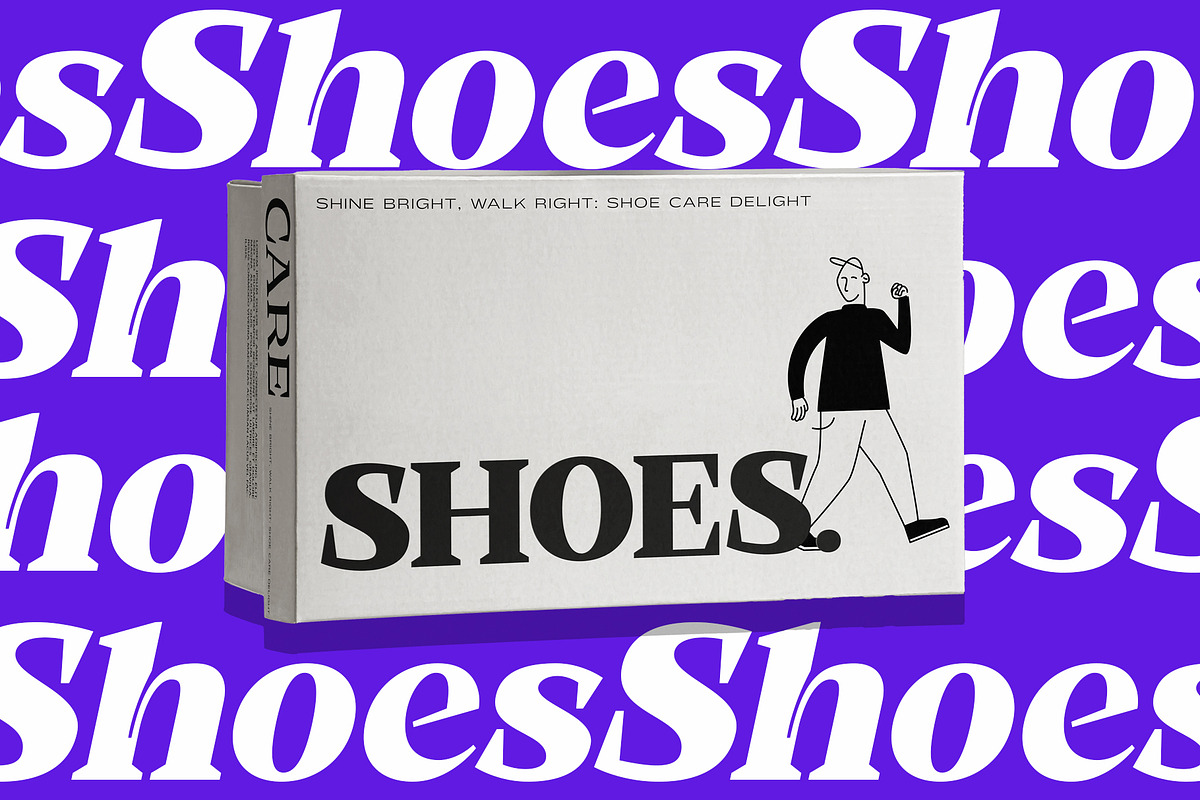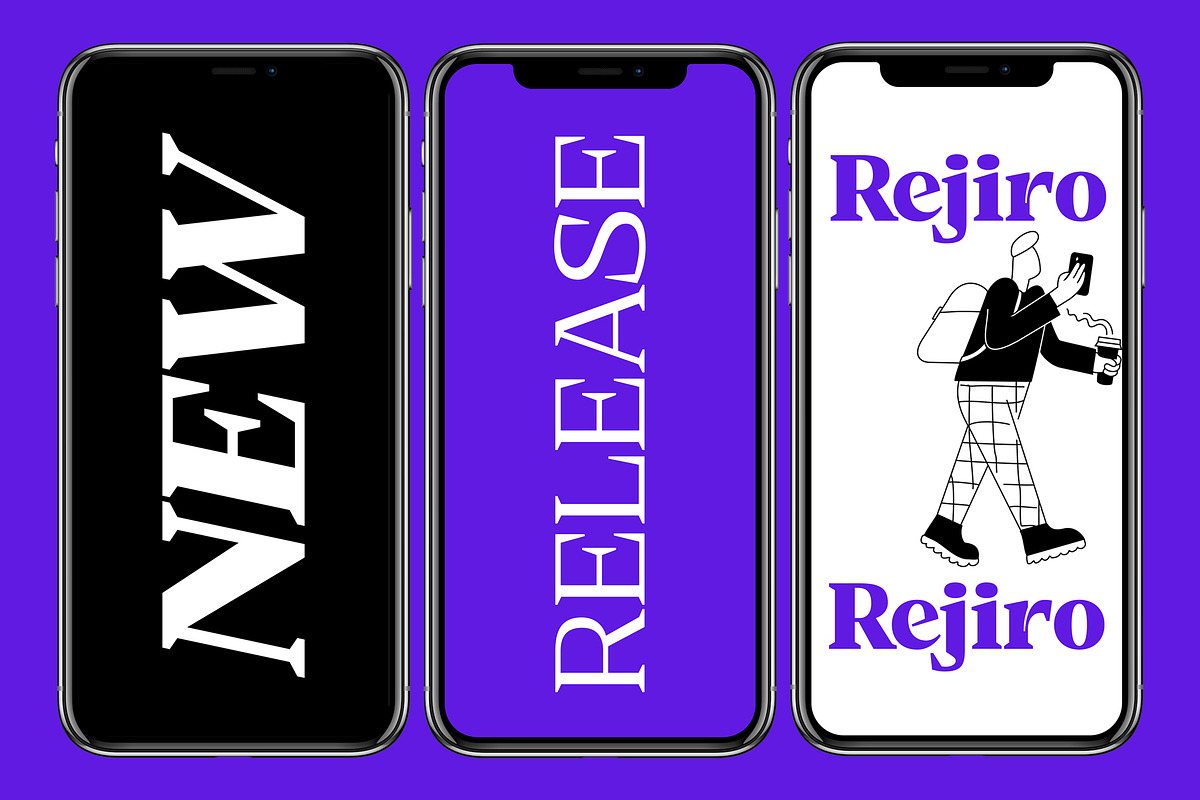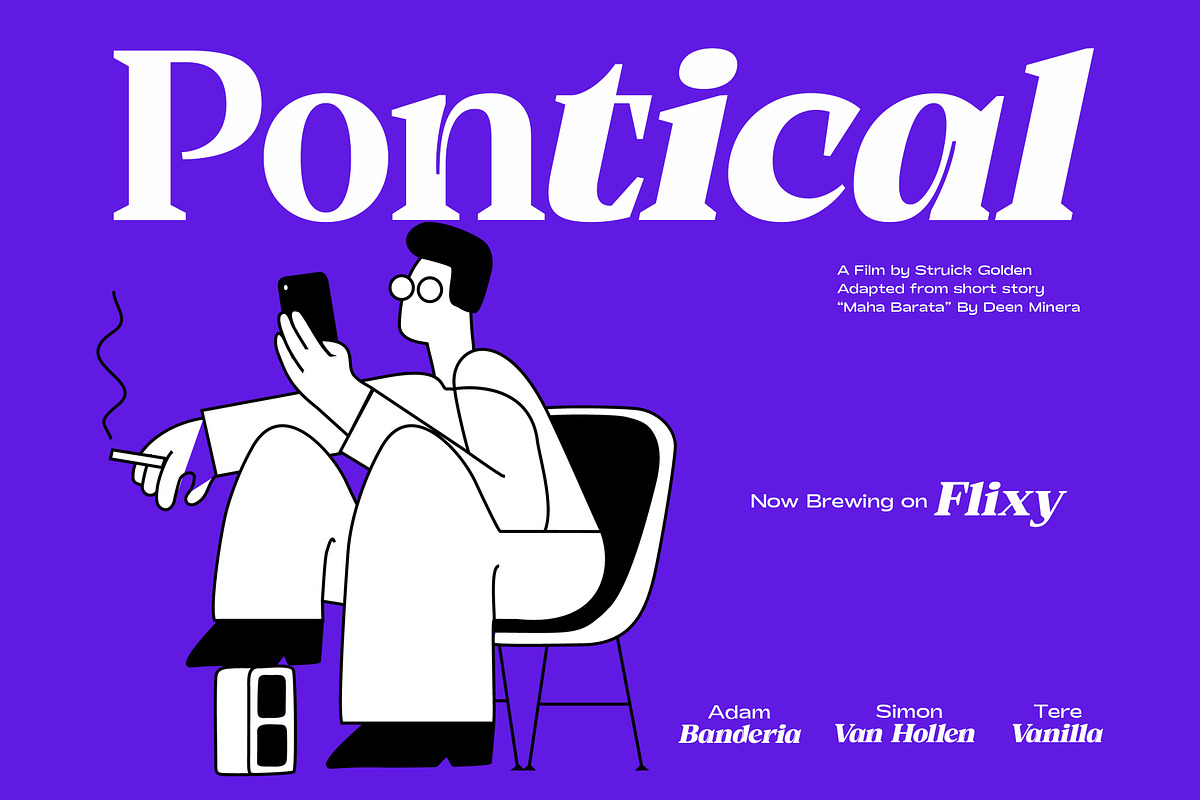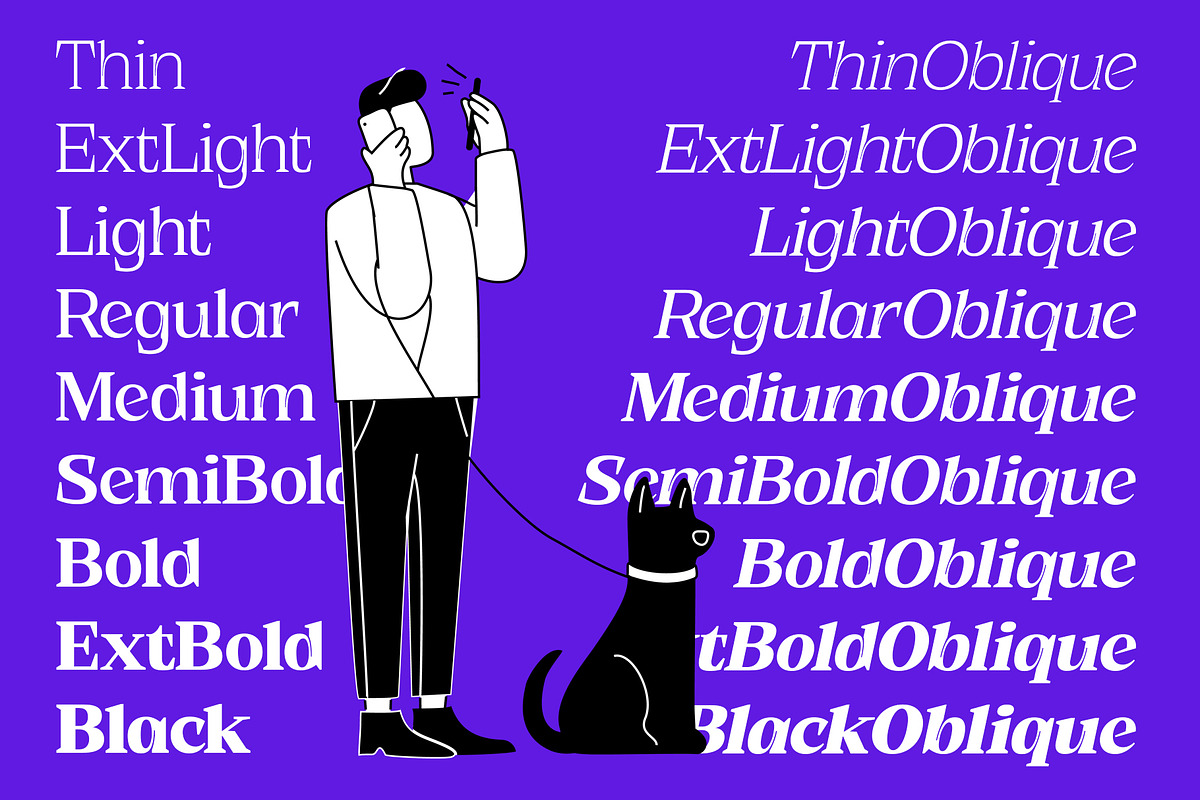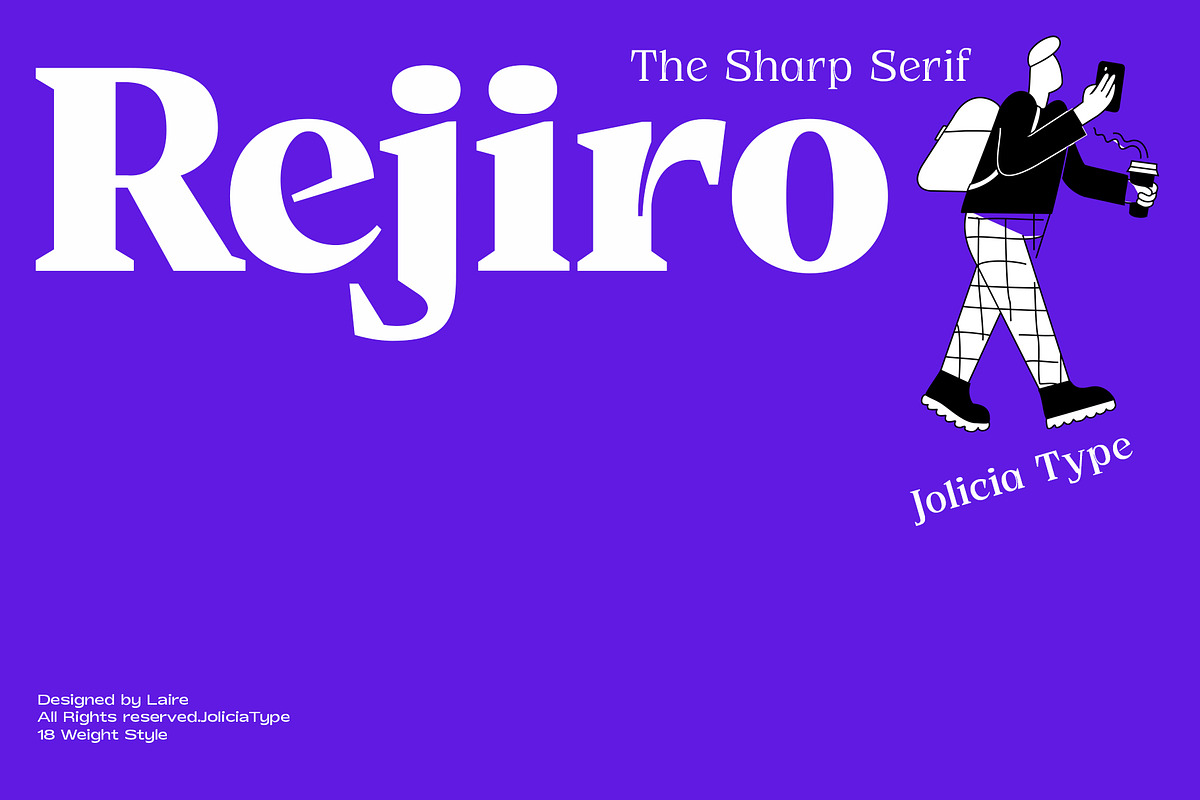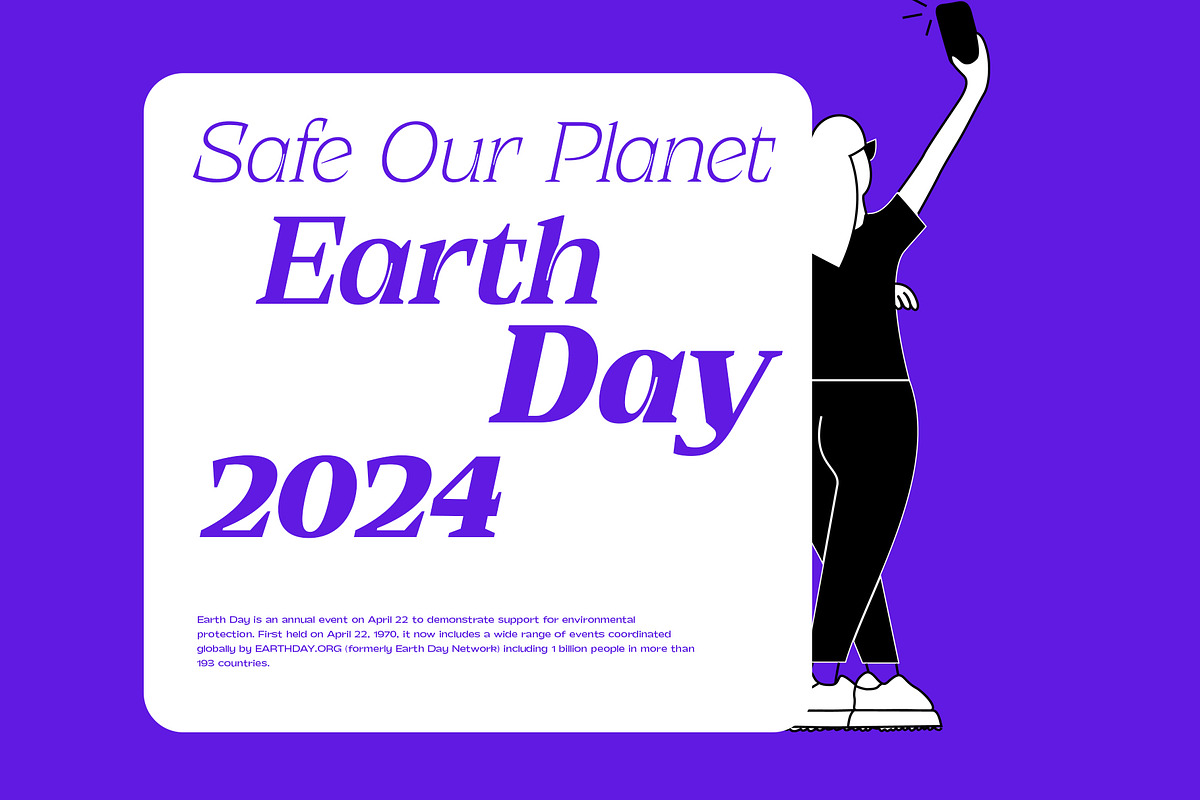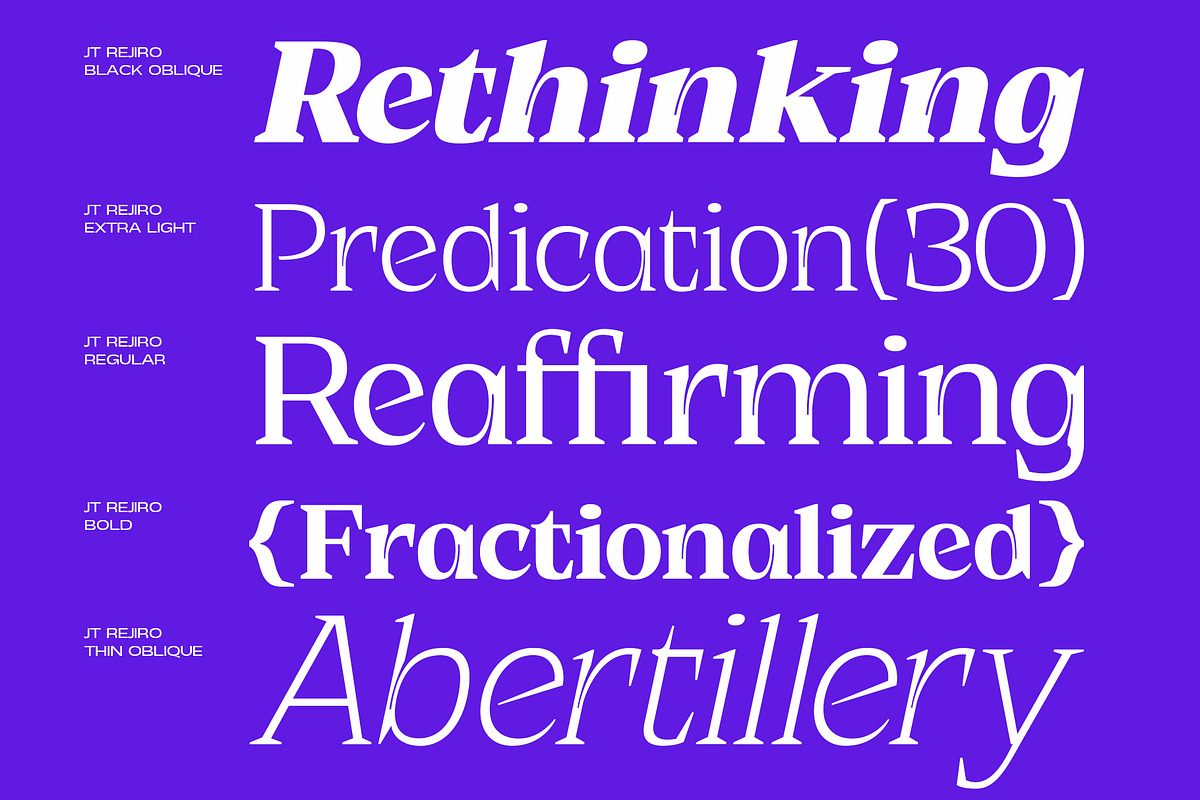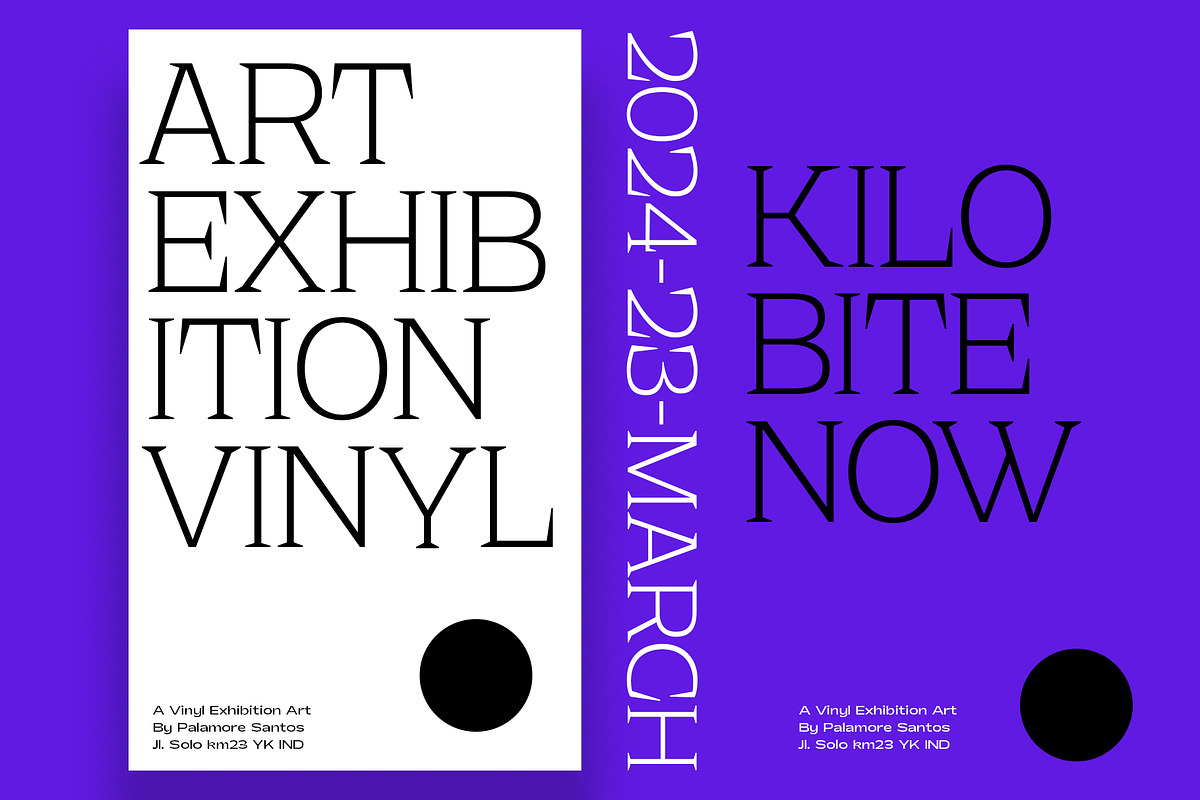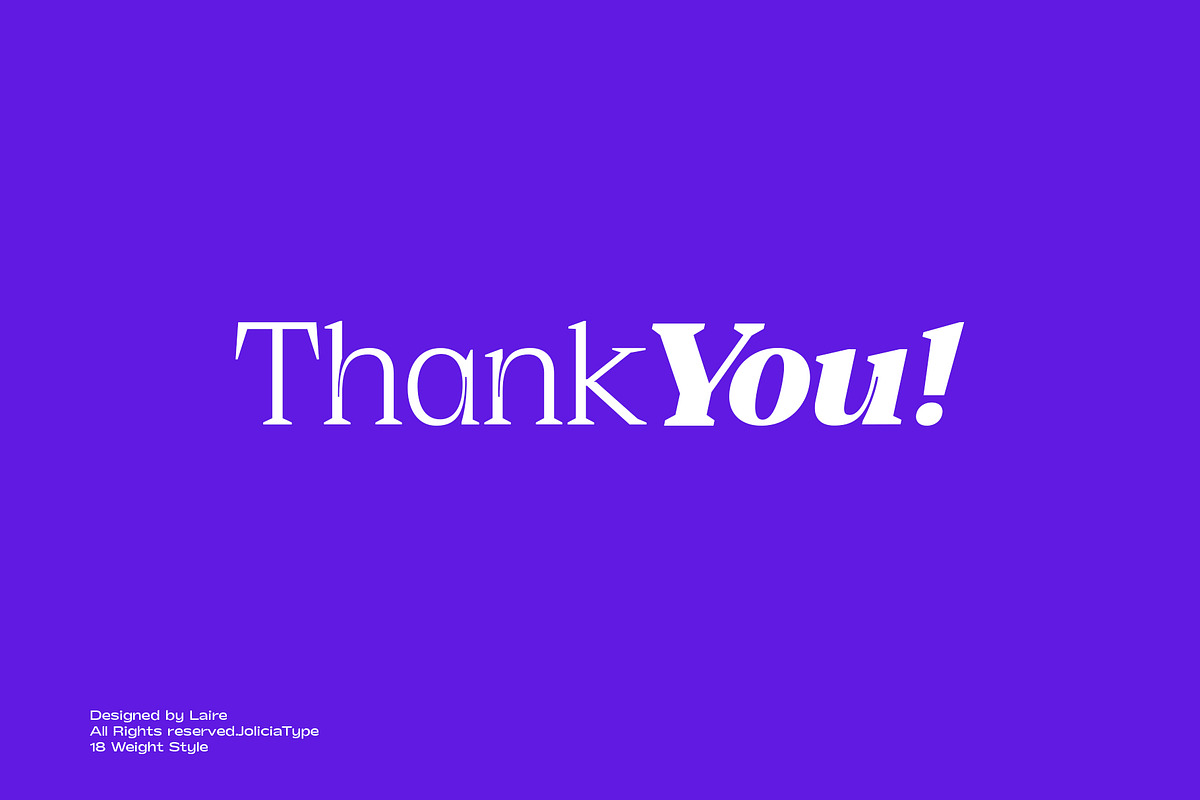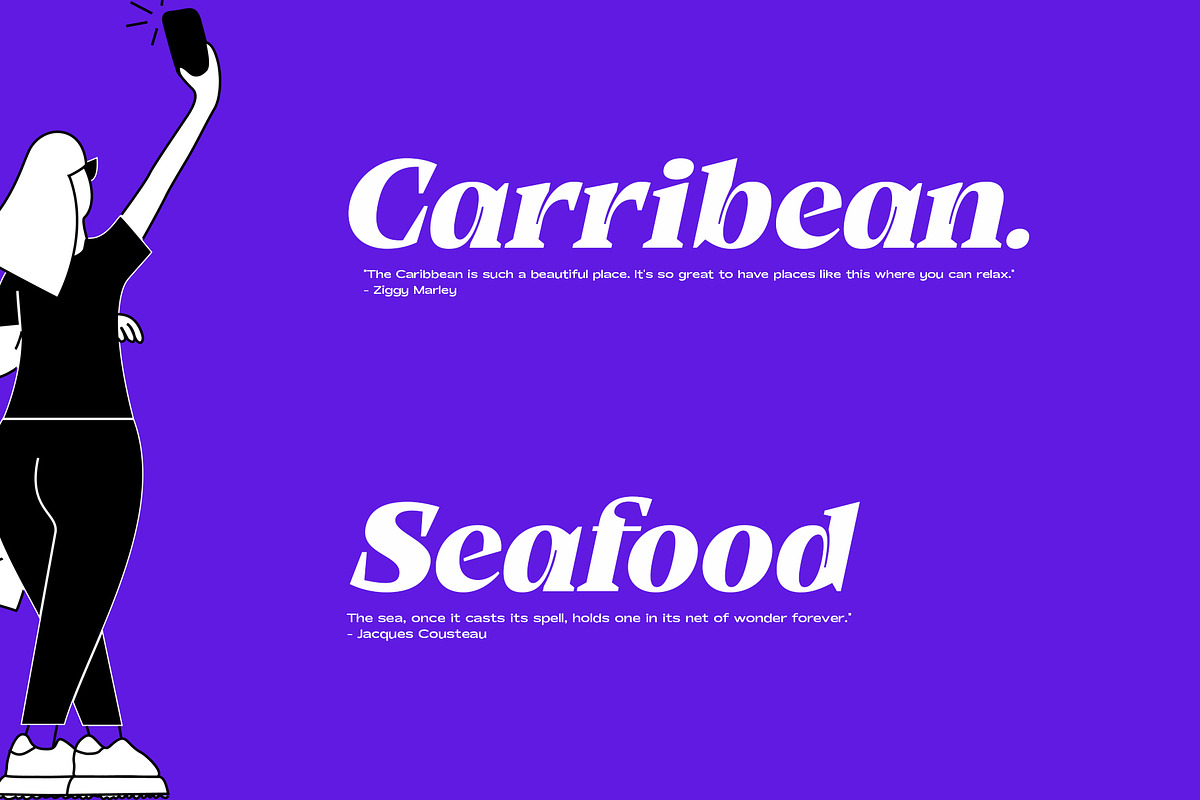
JT Rejiro | Sharp Serif
JT Rejiro is a sharp and pointed serif font with a strong style and a special impression crafted by Laire Banyu consisting of 18 weight styles starting from Thin, Extra Light, Light, Regular, Medium, SemiBold, Bold, Extra Bold, Black. all have the Oblique type so this was created to give a unified strong and sharp impression. anatomy of letters on the pointed end At thick stem junctions we provide extreme inktrap so that it has a different character from the others
It has a total of 348 glyphs which can cover 92 languages